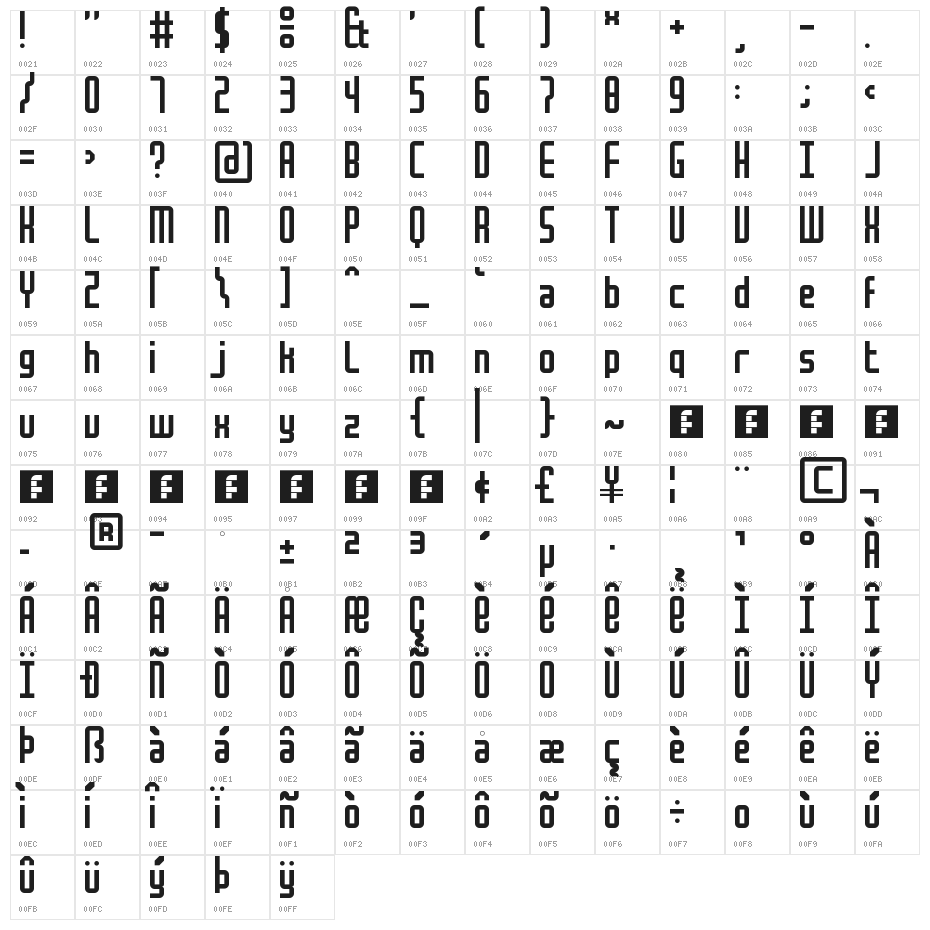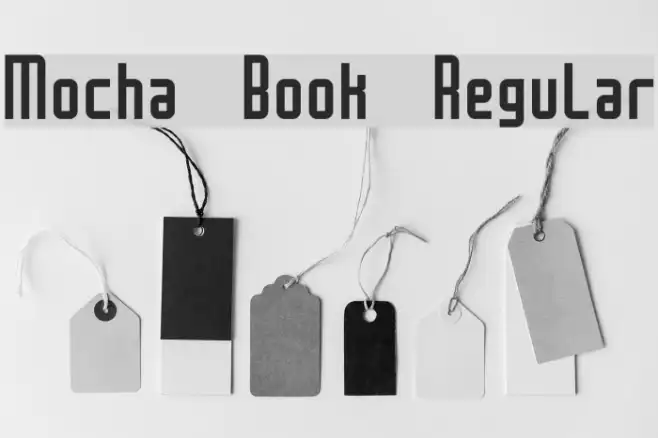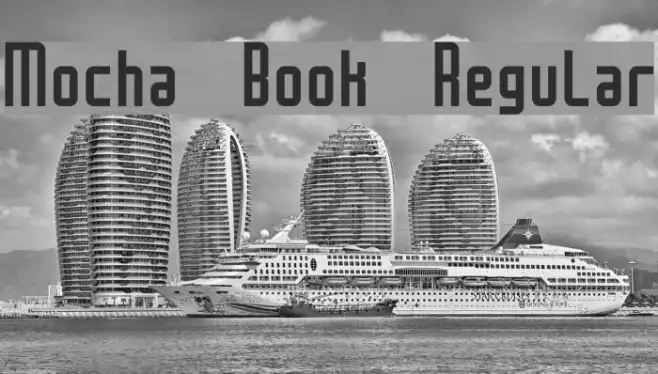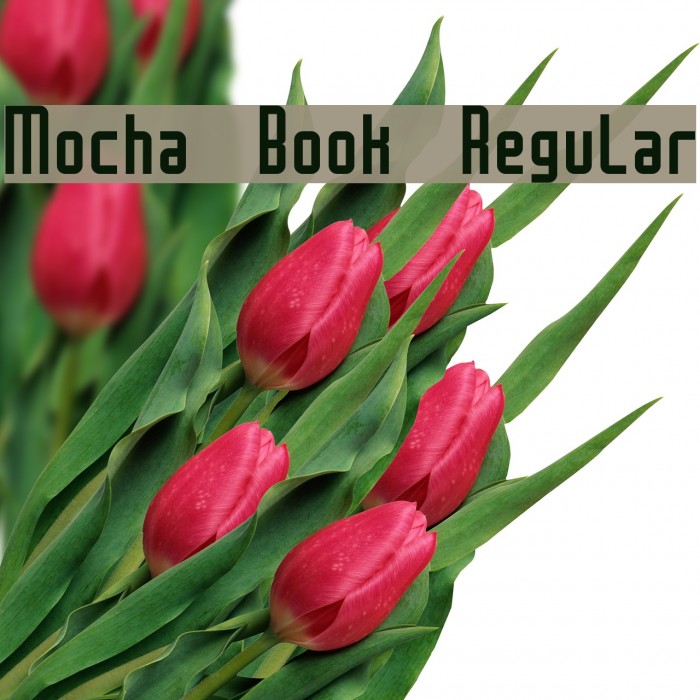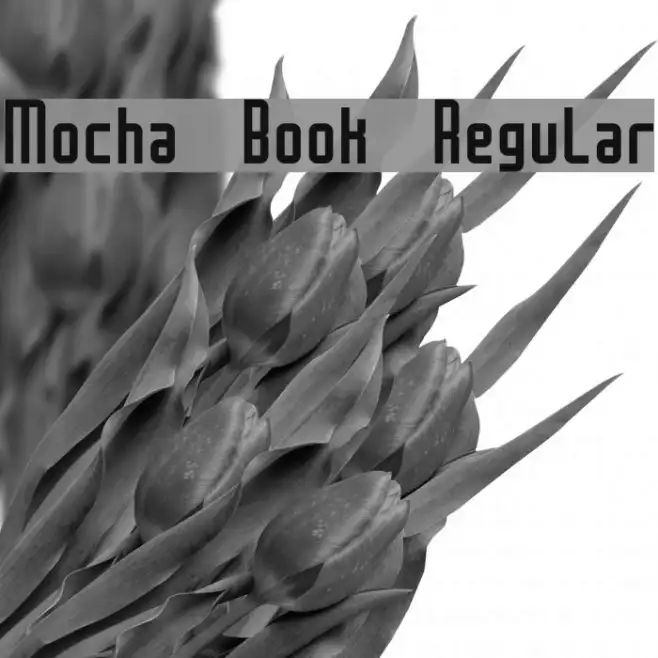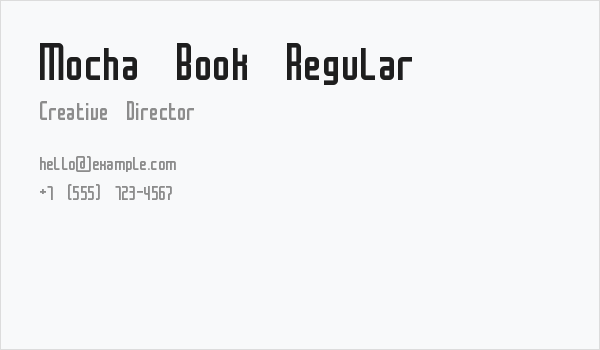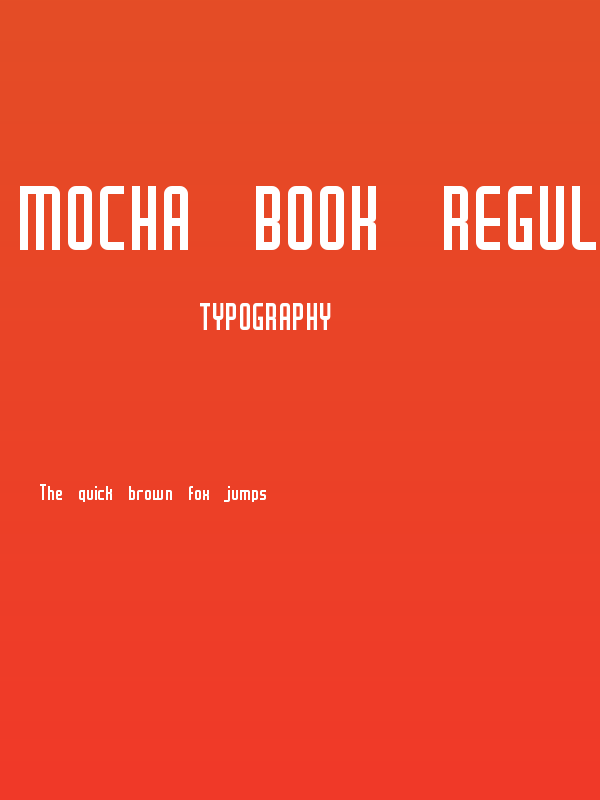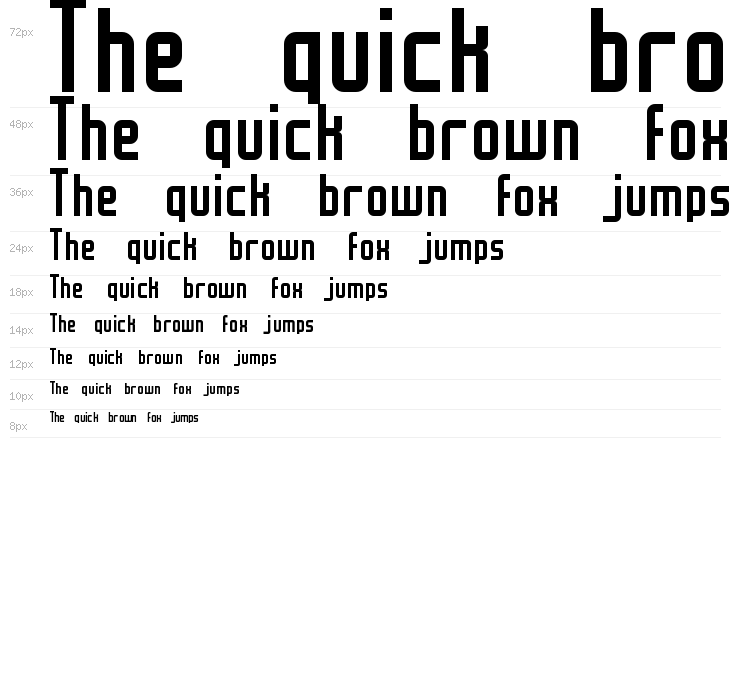
Mocha Book Regular Font
Mocha Book Regular Description
This font features a geometric and modern design with a strong emphasis on vertical and horizontal lines. The characters are uniformly structured, giving a sense of balance and stability. The uppercase letters are bold and commanding, while the lowercase letters maintain a consistent style that complements the uppercase. The numerals are clear and legible, making them suitable for various applications. Special characters are distinct and maintain the overall aesthetic of the font. The design is clean and uncluttered, making it versatile for both digital and print media.
| Proposed Projects | Ideal for branding, signage, posters, and digital media where a modern and clean look is desired. |